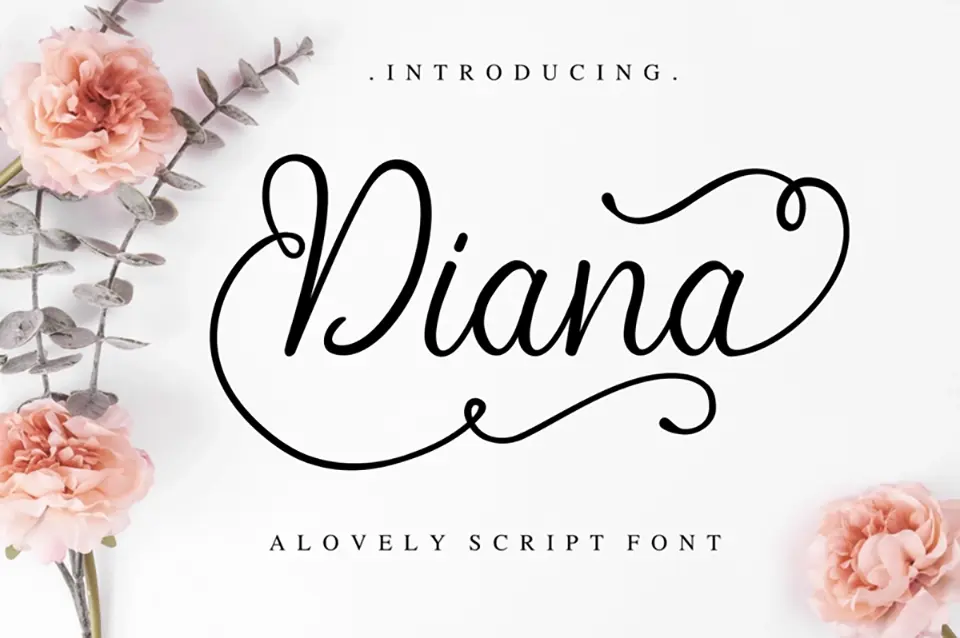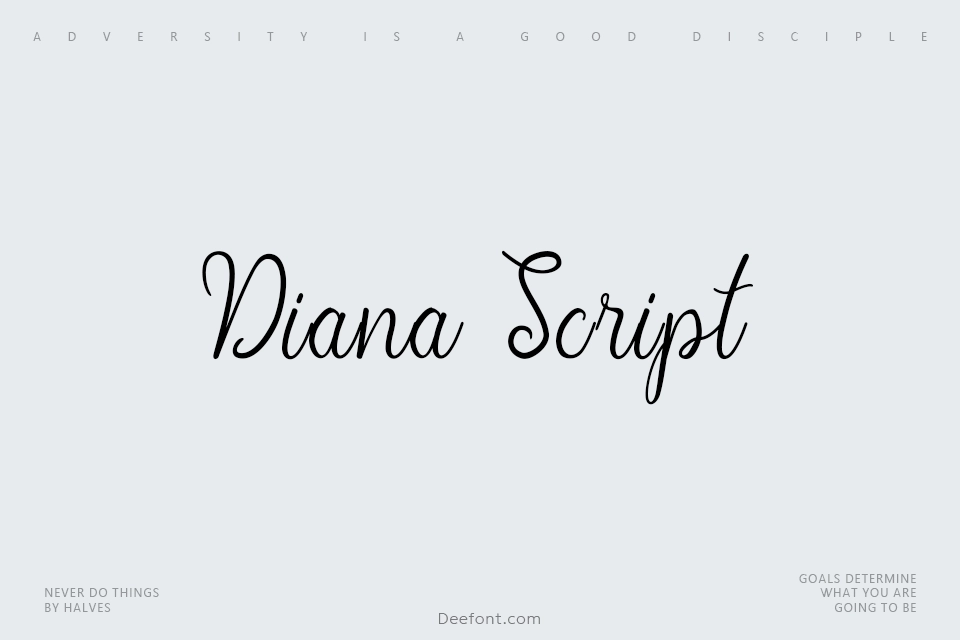
Diana Script Font
Diana Script is an elegant calligraphy font designed by Imam Munandar that combines flowing lines with an expressive, romantic aesthetic. Perfect for wedding invitations, personal branding, greeting cards, and decorative projects, this typeface captures the charm and grace of classic calligraphy while maintaining a contemporary appeal. With its fluid, sophisticated strokes, Diana Script adds an instant touch of elegance to any design project.